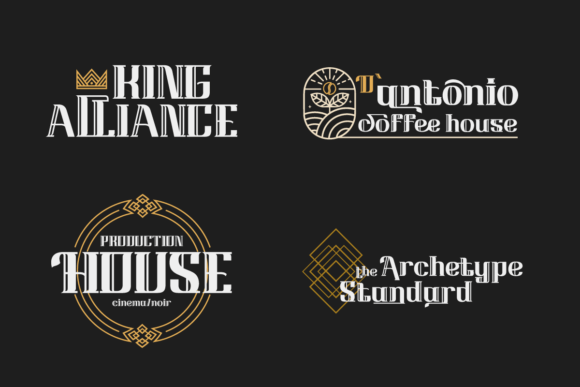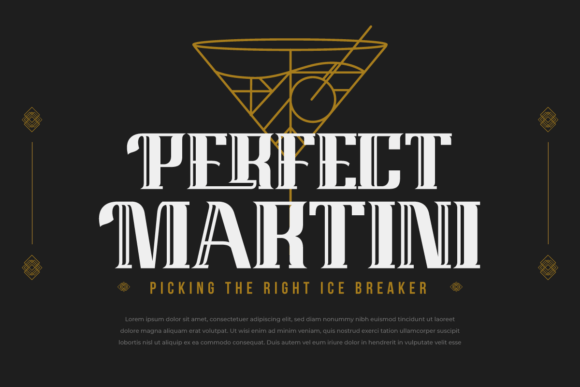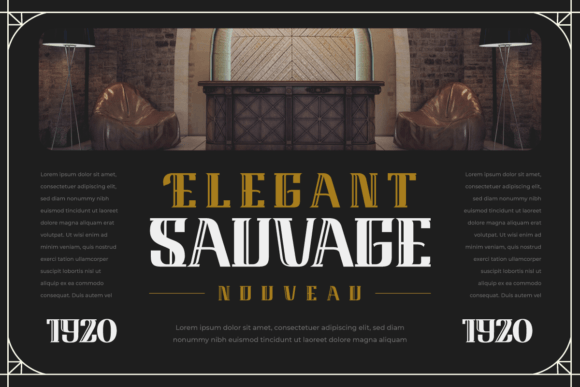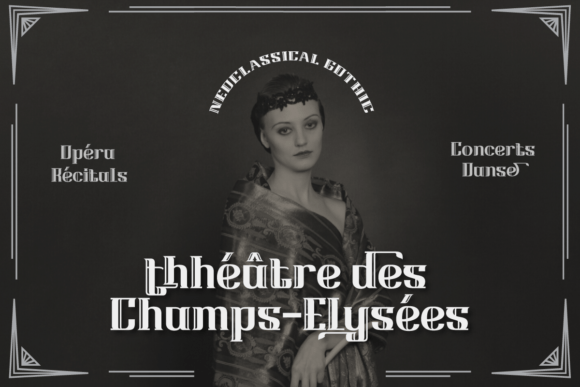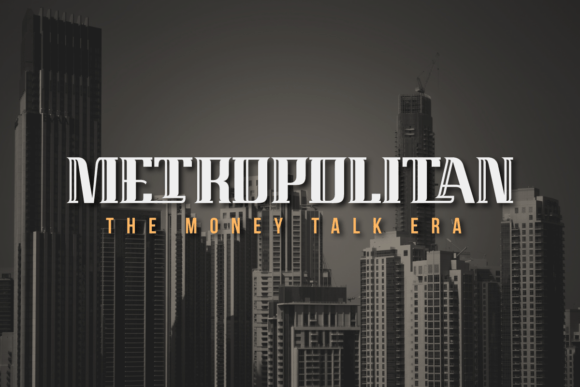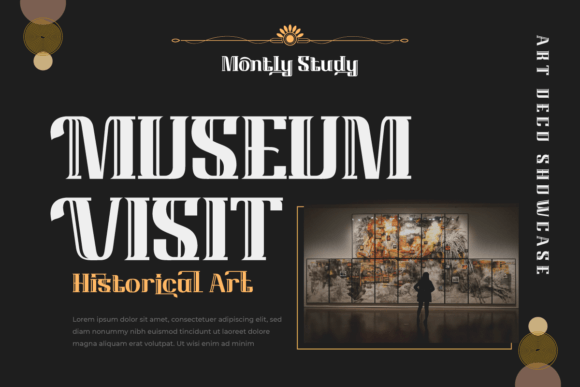
Introducing Behiner Font: Elevate Your Designs with a Touch of Classic Art Deco
In the world of design, fonts play a pivotal role in conveying messages, evoking emotions, and setting the tone for creative projects. For designers and crafters looking to infuse their work with a classic art deco flair, Behiner Font emerges as a versatile and stylish solution. This sleek and modern font is not only visually appealing but also offers a range of features that make it perfect for a variety of design applications.
The Essence of Behiner Font
Behiner Font is crafted to bring a touch of sophistication and elegance to your designs. Its letterforms are simple yet captivating, making it an excellent choice for projects that require a balance of modernity and classic appeal. Whether you’re working on commercials, posters, brochures, business cards, or any other creative endeavor, Behiner Font is designed to enhance your work with its unique art deco style.
Design Freedom with Ligatures
One of the standout features of Behiner Font is its ligature function and its equivalents, which provide designers with considerable freedom in character choices. Ligatures are special characters that combine two or more letters into a single glyph, offering a more harmonious and aesthetically pleasing text appearance. This feature is particularly useful in creating visually appealing headings, titles, and short texts where a touch of personality can make a significant difference.
Multilingual Support
In today’s globalized world, designers often work on projects that cater to diverse audiences. Behiner Font supports several languages, making it an excellent choice for multilingual projects. This feature ensures that your designs can communicate effectively with a broader audience, regardless of the language. Whether you’re creating content for a global brand or a local business with a diverse customer base, Behiner Font’s multilingual support has got you covered.
Applications of Behiner Font
The versatility of Behiner Font makes it suitable for a wide range of design projects. Here are some of the key areas where Behiner Font can make a significant impact:
- Commercials: Add a retro feel to your advertisements with Behiner Font’s classic art deco style.
- Posters: Create eye-catching posters for events, promotions, or informational campaigns.
- Brochures: Elevate your marketing materials with a sophisticated and elegant font.
- Business Cards: Make a lasting impression with beautifully designed business cards.
- Creative Projects: From art installations to digital media, Behiner Font can add a unique touch to your creative endeavors.
Why Choose Behiner Font?
Behiner Font is more than just a typeface; it’s a design tool that offers a perfect blend of style, versatility, and functionality. Here are some reasons why Behiner Font should be your go-to choice for your next design project:
- Unique Style: Offers a classic art deco flair that’s both modern and timeless.
- High Versatility: Suitable for a wide range of design projects, from print to digital media.
- Ligature Function: Provides design freedom with special character combinations.
- Multilingual Support: Ideal for projects that require support for multiple languages.
Behiner Font is a stylish and versatile typeface that can elevate your designs with its classic art deco flair. Whether you’re a professional designer or a crafter, Behiner Font offers the perfect combination of style, functionality, and design freedom. With its ligature function, multilingual support, and suitability for a wide range of projects, Behiner Font is an excellent addition to your design toolkit. Explore the possibilities of Behiner Font and bring a touch of sophistication and elegance to your creative projects.